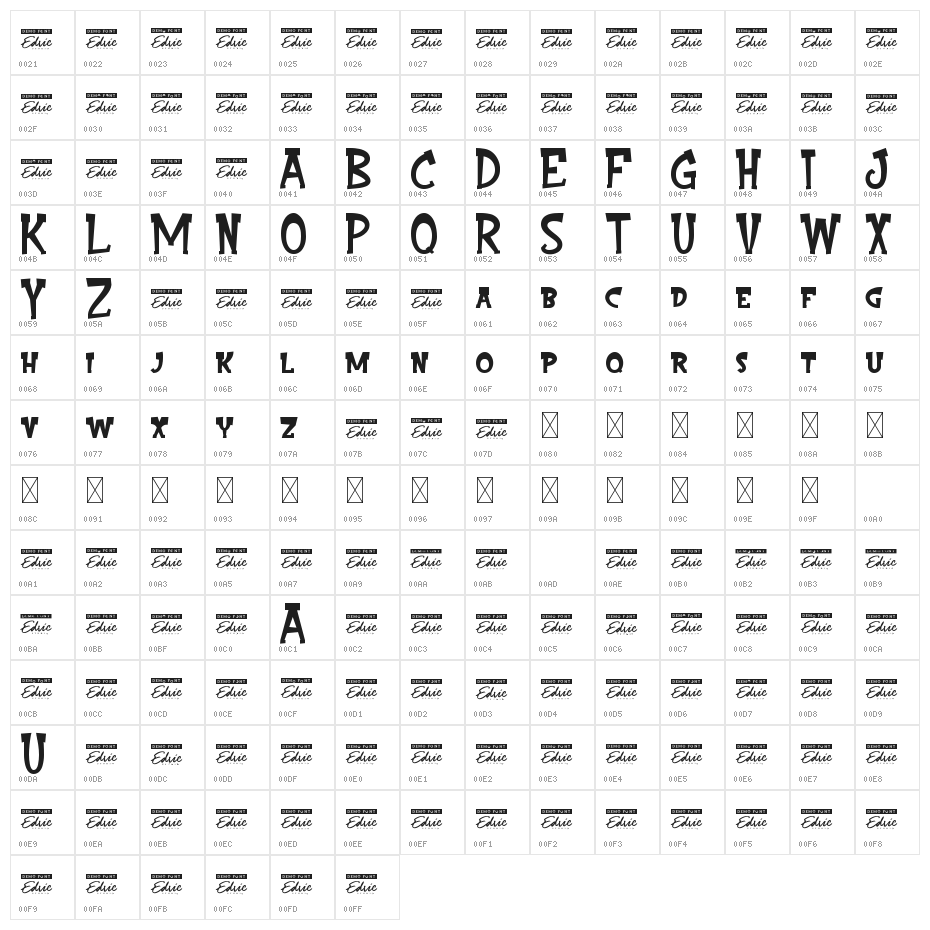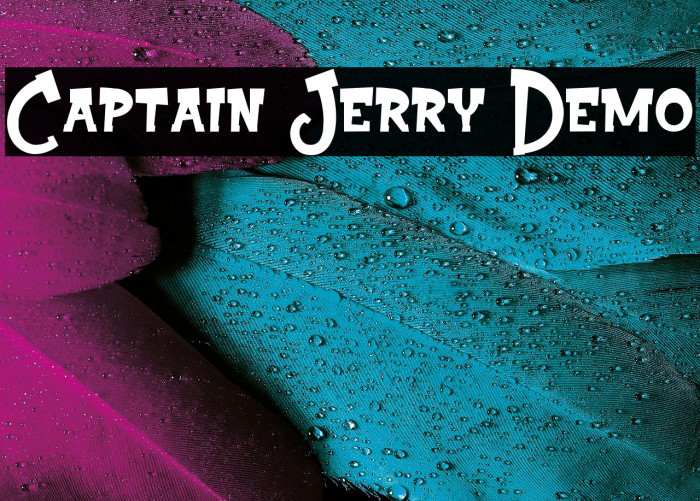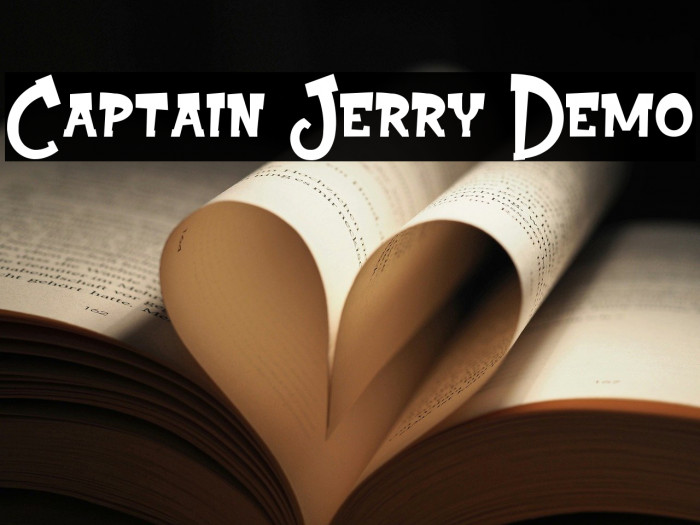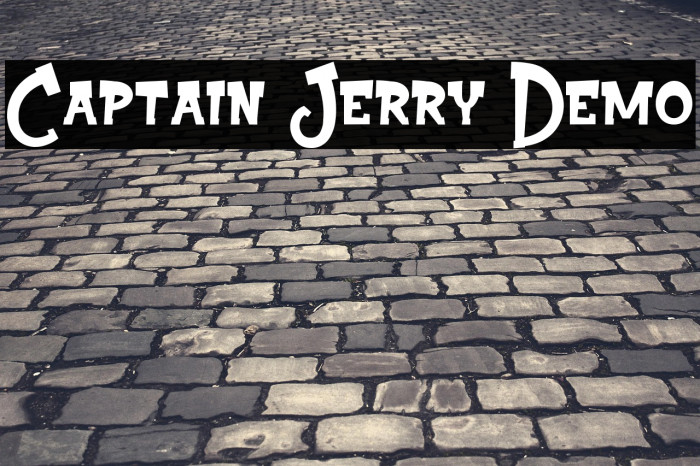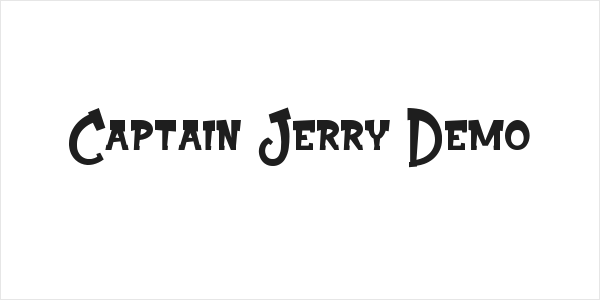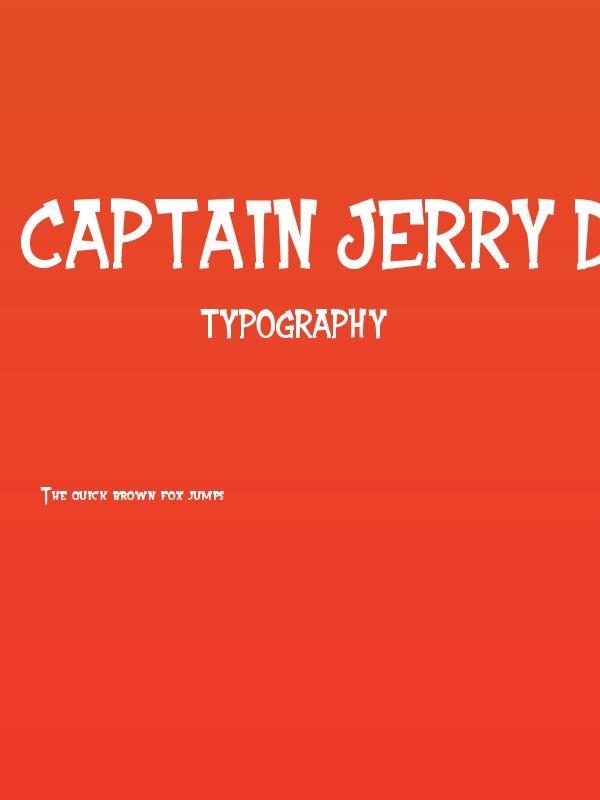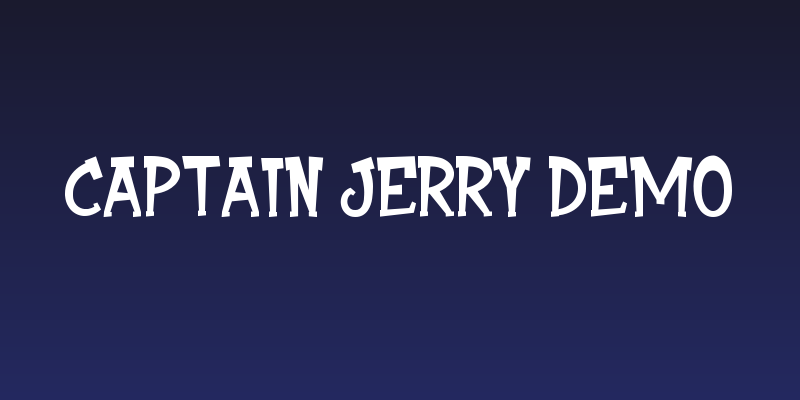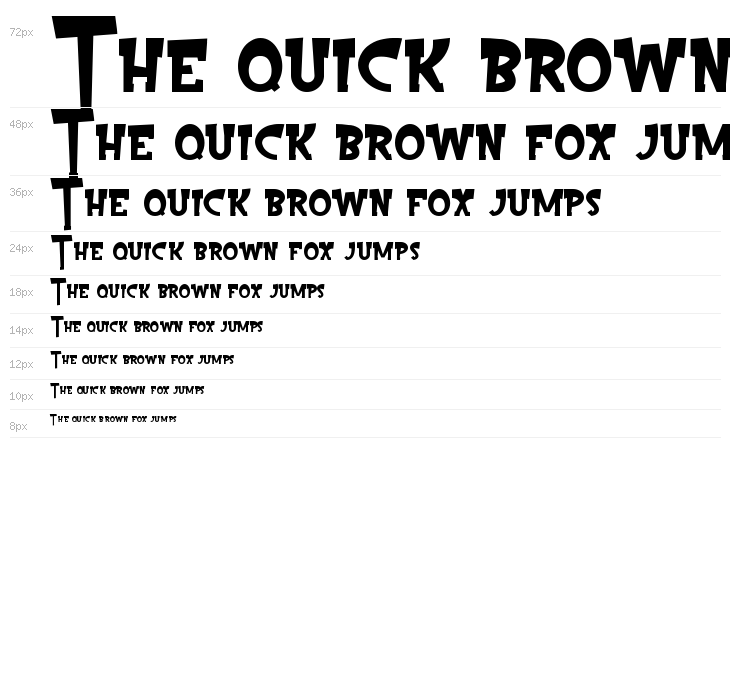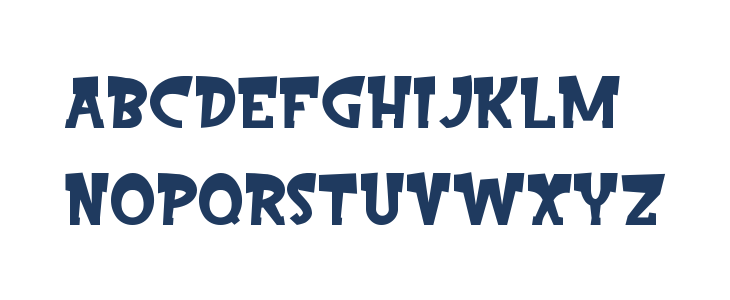
Captain Jerry Demo Font
Captain Jerry Demo Description
This font features a bold and playful design with a hand-drawn aesthetic. The uppercase letters are characterized by their exaggerated curves and varying stroke thickness, giving them a dynamic and energetic appearance. The lowercase letters maintain a consistent style, complementing the uppercase with their quirky and informal look. The numbers and special characters follow the same playful theme, making the font suitable for creative and informal projects. The overall design is reminiscent of comic book lettering, with a touch of whimsy and fun.
| Overall Style | Playful, Comic |
| Proposed Projects | Ideal for children's books, comic strips, playful branding, and creative posters. |